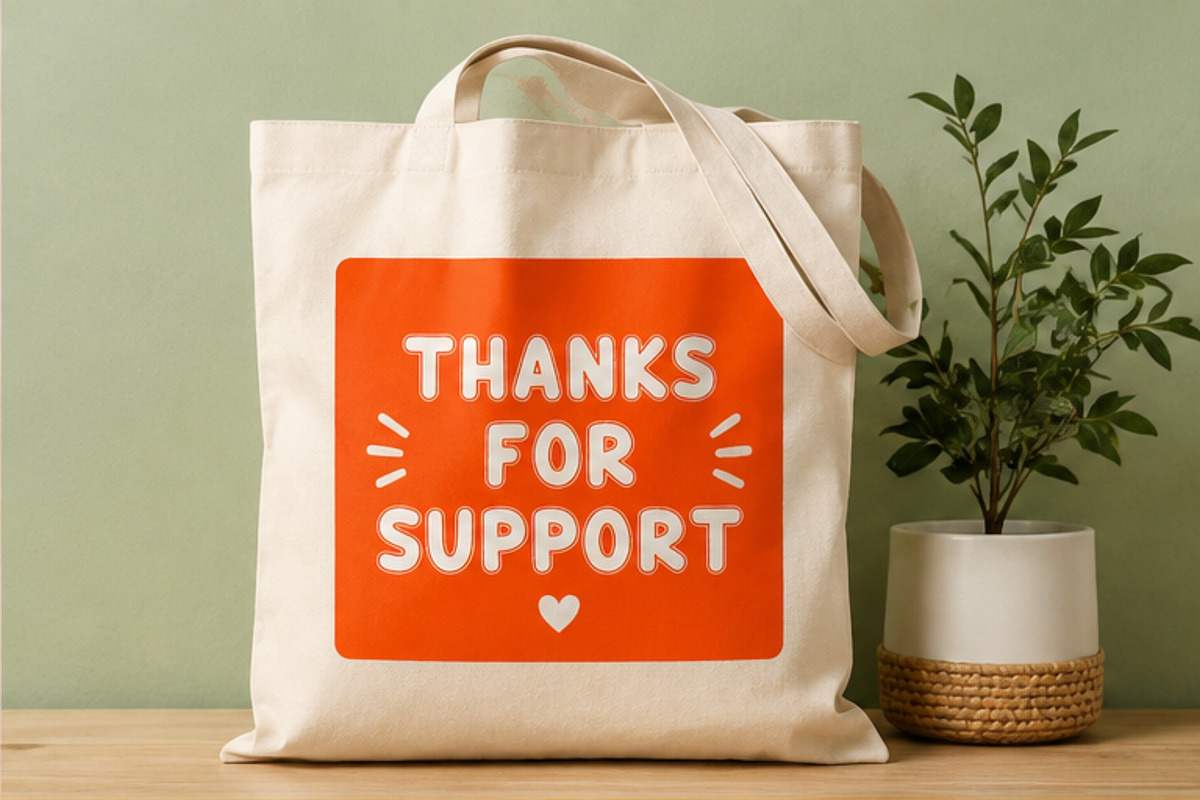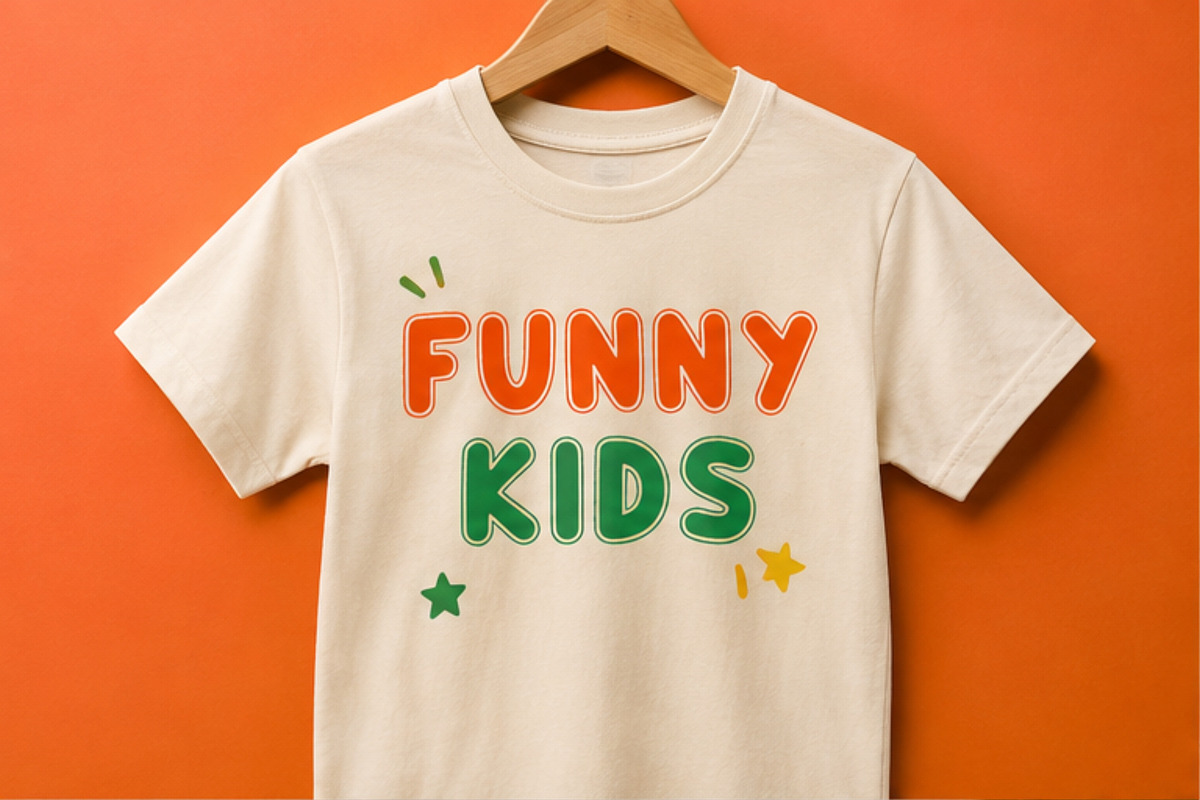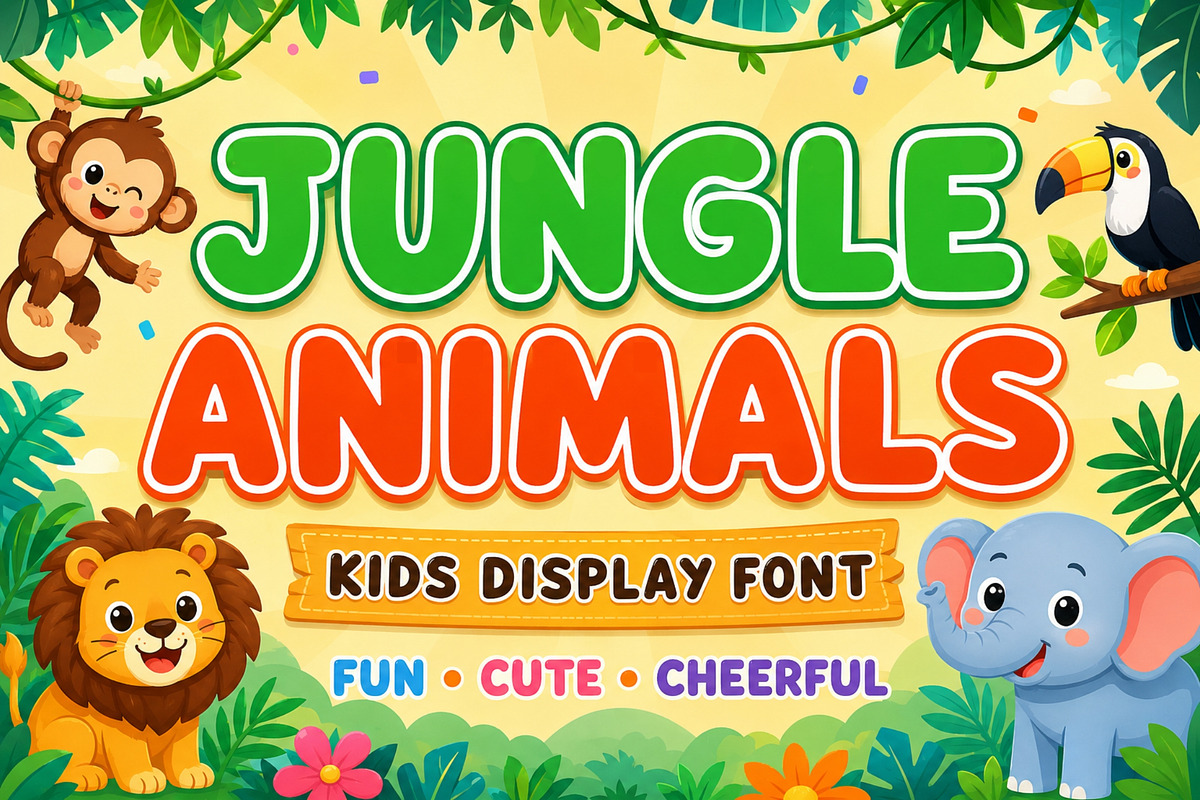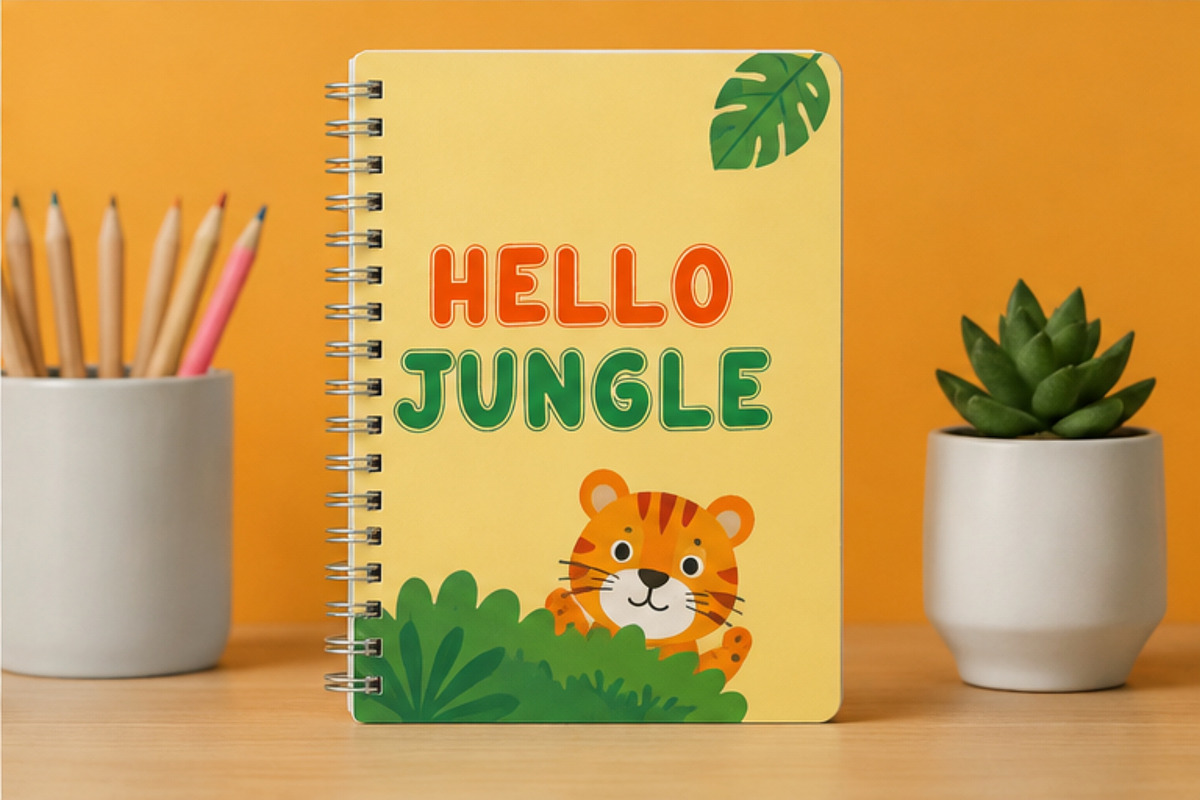
Jungle Animals
Jungle Animals Font is a fun, playful, and adventurous display typeface inspired by wild animals and tropical jungle vibes. Perfect for kids' designs, safari-themed projects, nursery decor, birthday invitations, T-shirts, stickers, posters, party decorations, Cricut crafts, sublimation, and more.
Bring a wild and cheerful personality to your creative projects with this eye-catching jungle-inspired font. Ideal for designers, crafters, small businesses, and anyone looking to add a fun safari touch to their artwork.
Jungle and safari-inspired design
Fun and playful display style
Perfect for kids and children's projects